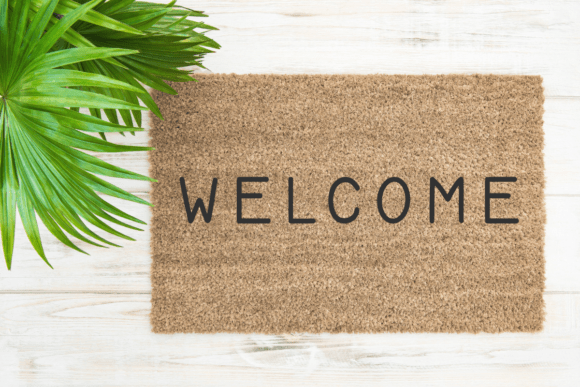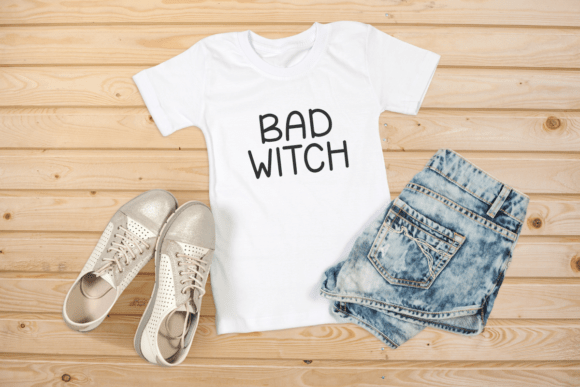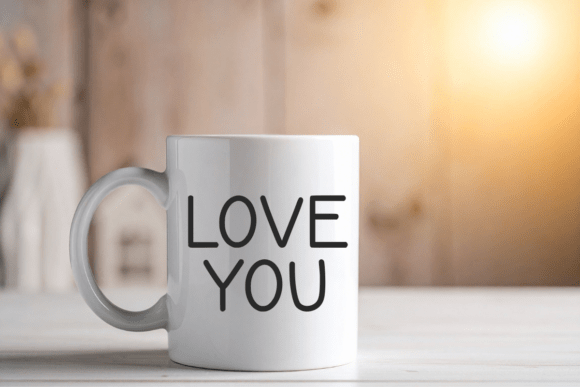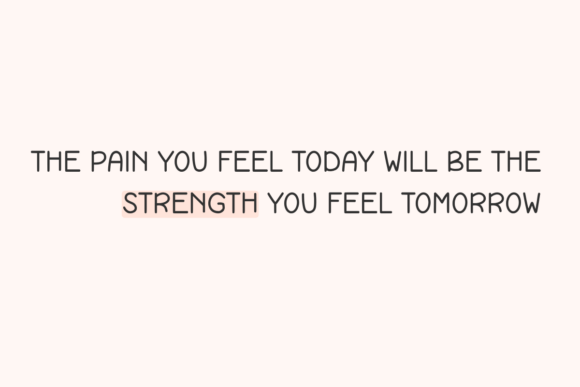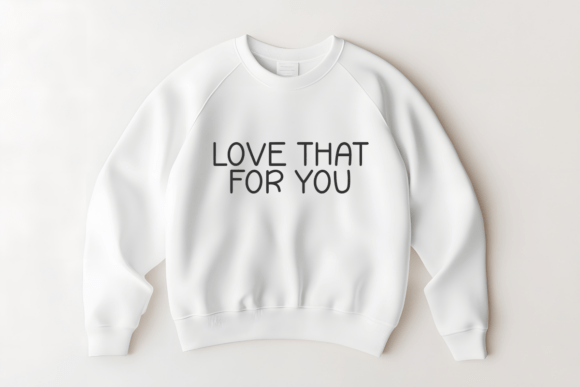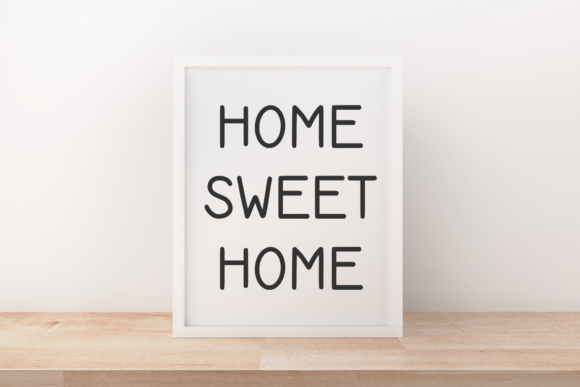
Introducing Clear Night Font: The Perfect Handwritten Style for Crafters and Designers
Are you a crafter, designer, or DIY enthusiast looking for a font that can add a personal touch to your projects? Look no further than Clear Night Font, a beautiful sans serif handwriting font that exudes a soft, friendly, and natural look. In this article, we’ll explore the features and benefits of Clear Night Font, and how it can elevate your craft projects, planners, stickers, kids’ worksheets, classroom printables, and DIY designs.
A Warm Handcrafted Feeling
Clear Night Font is designed to bring a warm, handcrafted feeling to your projects. Its simple strokes and smooth curves make it easy to read and visually appealing. The font’s soft and friendly look is perfect for crafters who love adorable handwritten styles. Whether you’re creating quotes, greeting cards, kids’ labels, coloring pages, worksheets, bullet journals, scrapbooks, or playful graphic projects, Clear Night Font is the ideal choice.
Perfect for Crafting Moms and Educators
Clear Night Font is a dream come true for crafting moms and educators who love creating handmade projects for their kids or classrooms. The font’s cute and playful style makes it perfect for kids’ worksheets, classroom printables, and DIY designs. With Clear Night Font, you can create engaging and interactive learning materials that will delight your kids and students.
Ease of Use with Cricut and Silhouette
One of the best things about Clear Night Font is its compatibility with cutting machines like Cricut and Silhouette. The font’s simple strokes and smooth curves make it easy to cut and weed, saving you time and effort. Whether you’re a seasoned crafter or a beginner, Clear Night Font is a great choice for your cutting machine projects.
Clear Night Font offers endless creative possibilities for designers and crafters. Here are some ideas to get you started:
- Quotes and posters: Add a personal touch to your inspirational quotes and posters with Clear Night Font.
- Greeting cards: Create beautiful and heartfelt greeting cards for special occasions.
- Kids’ labels: Make cute and colorful labels for your kids’ folders, books, and belongings.
- Coloring pages: Create engaging and interactive coloring pages for kids.
- Worksheets: Design fun and educational worksheets for kids.
- Bullet journals: Add a personal touch to your bullet journals with Clear Night Font.
- Scrapbooks: Create beautiful and memorable scrapbooks with Clear Night Font.
- Playful graphic projects: Use Clear Night Font to create fun and playful graphic projects, such as stickers, icons, and graphics.
Why Choose Clear Night Font?
So, why choose Clear Night Font over other fonts? Here are some reasons:
- Unique and adorable style: Clear Night Font has a unique and adorable style that will make your projects stand out.
- Easy to read: The font is easy to read, making it perfect for kids’ projects and educational materials.
- Compatible with cutting machines: Clear Night Font is compatible with cutting machines like Cricut and Silhouette.
- Versatile: The font is versatile and can be used for a wide range of projects, from craft projects to graphic designs.
In conclusion, Clear Night Font is a beautiful and versatile font that is perfect for crafters, designers, and DIY enthusiasts. Its soft, friendly, and natural look makes it ideal for a wide range of projects, from craft projects to graphic designs. With its compatibility with cutting machines like Cricut and Silhouette, ease of use, and endless creative possibilities, Clear Night Font is a must-have font for anyone looking to add a personal touch to their projects.